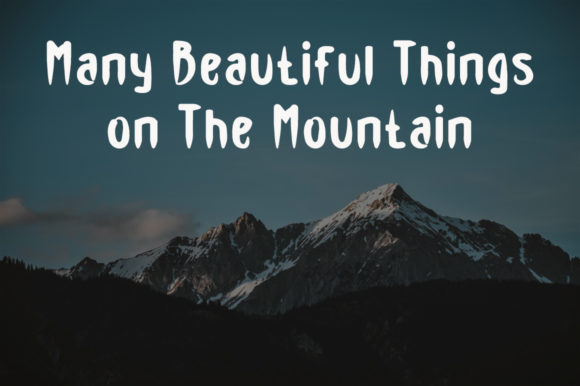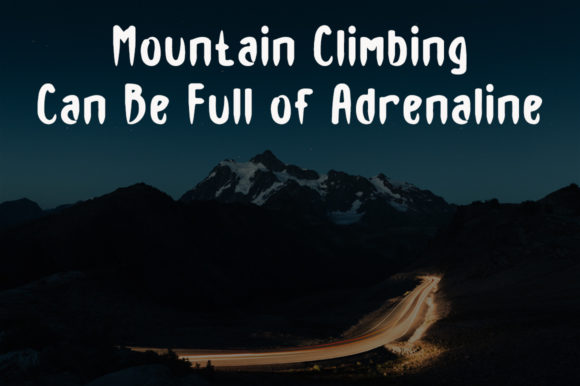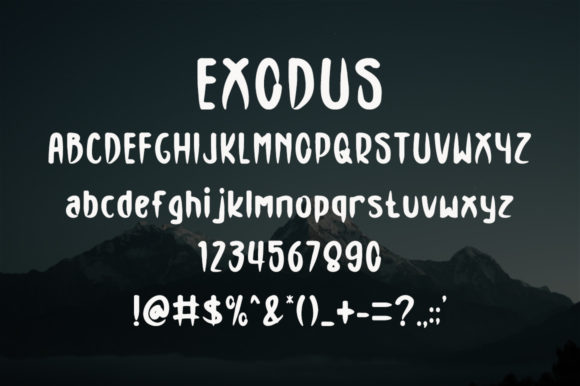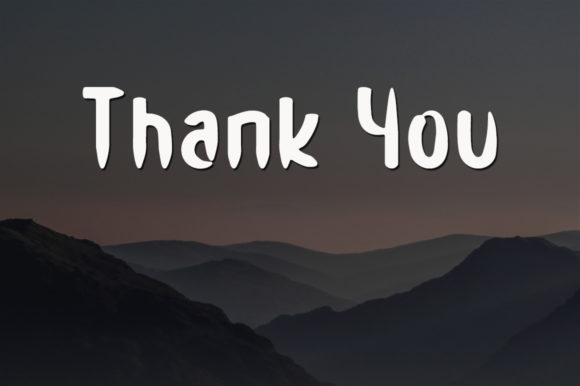
Introduction to Exodus Font
Exodus is a unique and interesting display font.
A little bit quirky, this font looks incredibly adept on a wide variety of contexts .
Key Features of Exodus Font